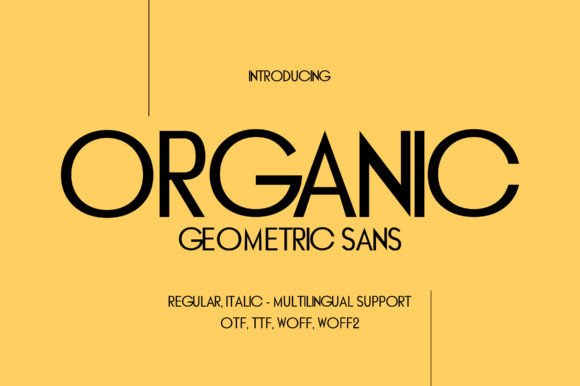
Step into the world of minimalist elegance with Organic, a sans serif font that captures the essence of sophistication and simplicity. Inspired by the beauty of geometric shapes and the fluidity of nature, Organic is a modern typeface that embodies harmony and balance. Its bold, uppercase letters exude confidence and authority, while its lowercase counterparts display a subtle grace that invites readability.
Organic's clean lines and minimalist design make it a versatile choice for a wide range of projects. From branding and advertising to web design and print projects, Organic effortlessly adapts to your creative vision and elevates your designs to new heights.
Imprint your brand's identity with Organic's striking uppercase characters, designed to make a lasting impression in logos and headlines. Its understated lowercase letters provide a perfect canvas for body text, ensuring effortless readability and a seamless reading experience.
Experience the power of contrast as Organic's straight lines and curves unite in perfect harmony. This unique fusion creates a typeface that is both striking and approachable, making it an ideal choice for designers seeking a distinctive and memorable aesthetic.
With its full suite of numerals, punctuation marks, and special characters, Organic is a comprehensive font that caters to a diverse array of design needs. Its versatility extends from branding and marketing materials to website interfaces and editorial design.
Choose Organic for a font that's as versatile as it is stylish. Its modern design and minimalist ethos make it the perfect choice for designers looking to create a lasting impact with their work. Whether you're a seasoned design professional or just starting your journey, Organic is the key to unlocking your creative potential.